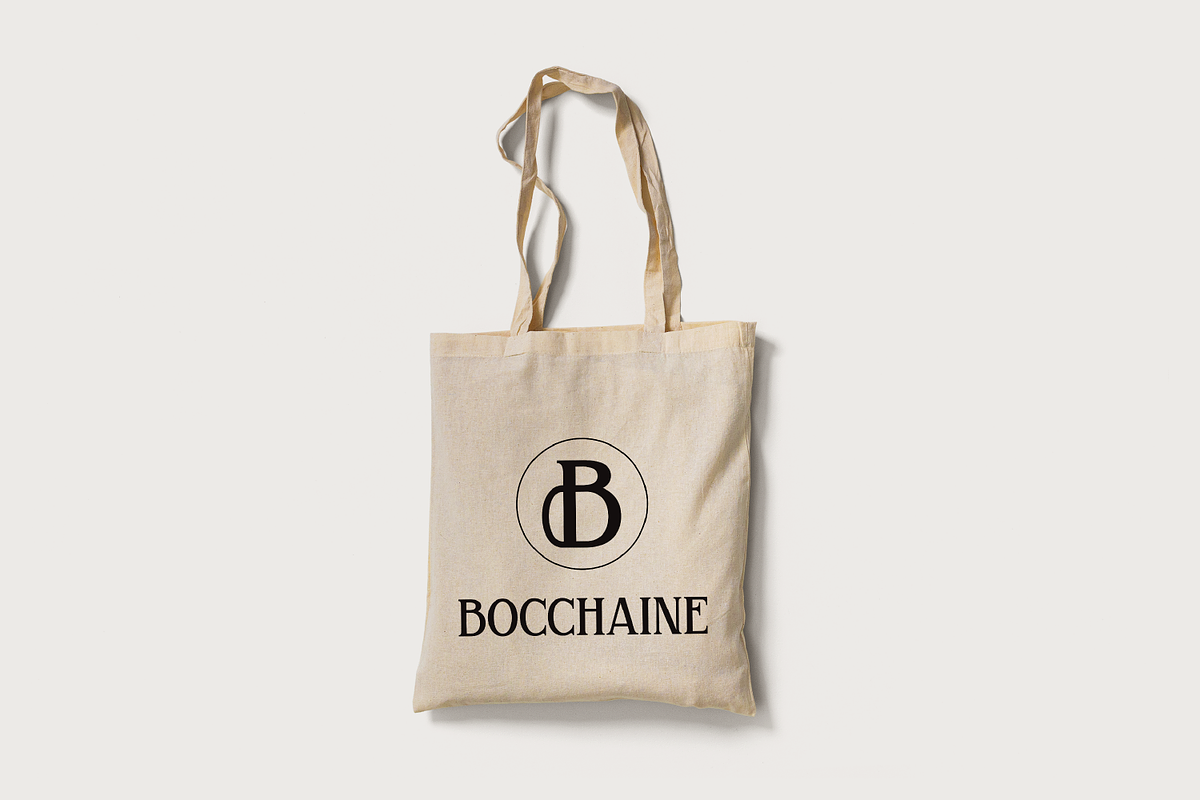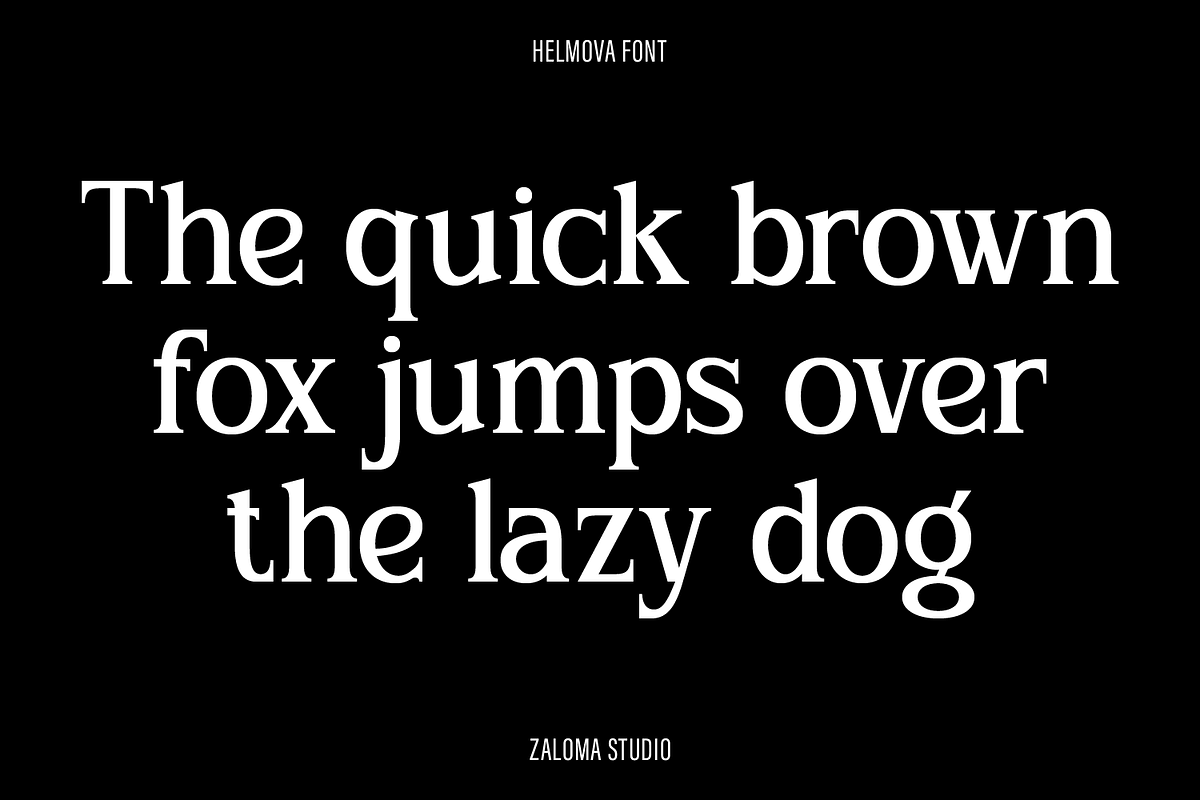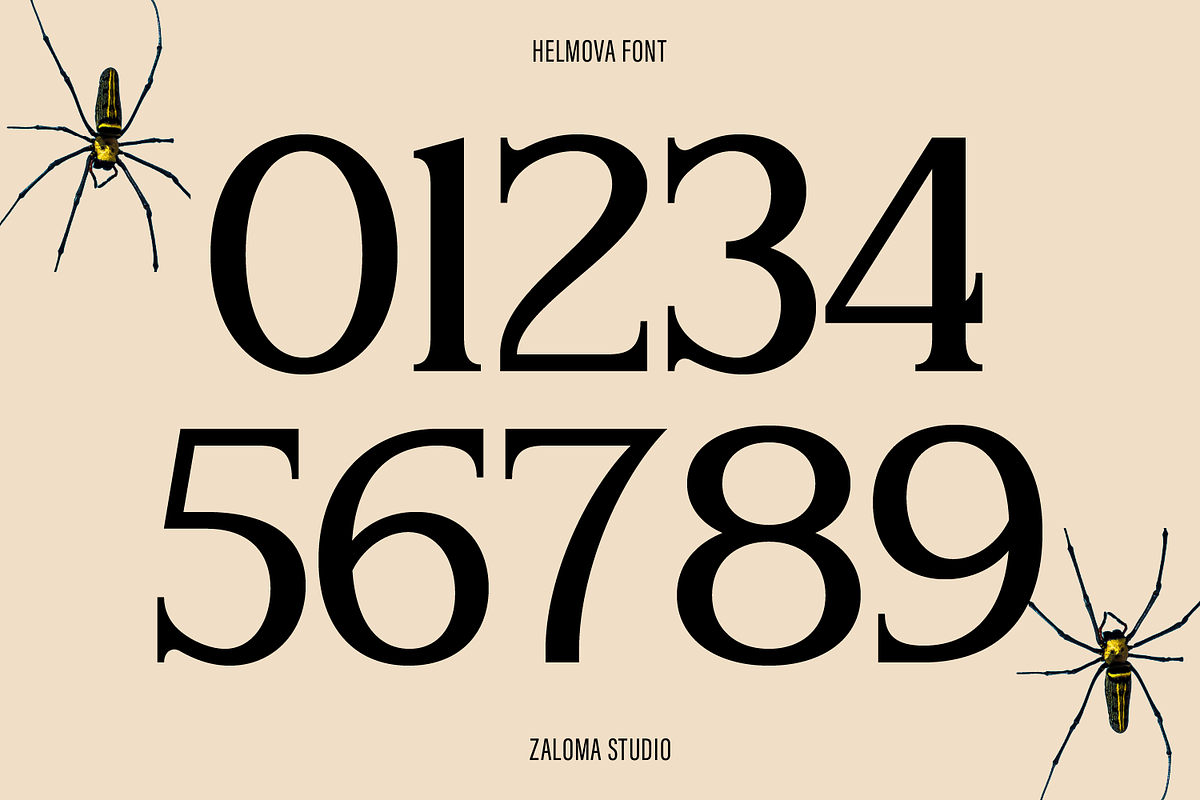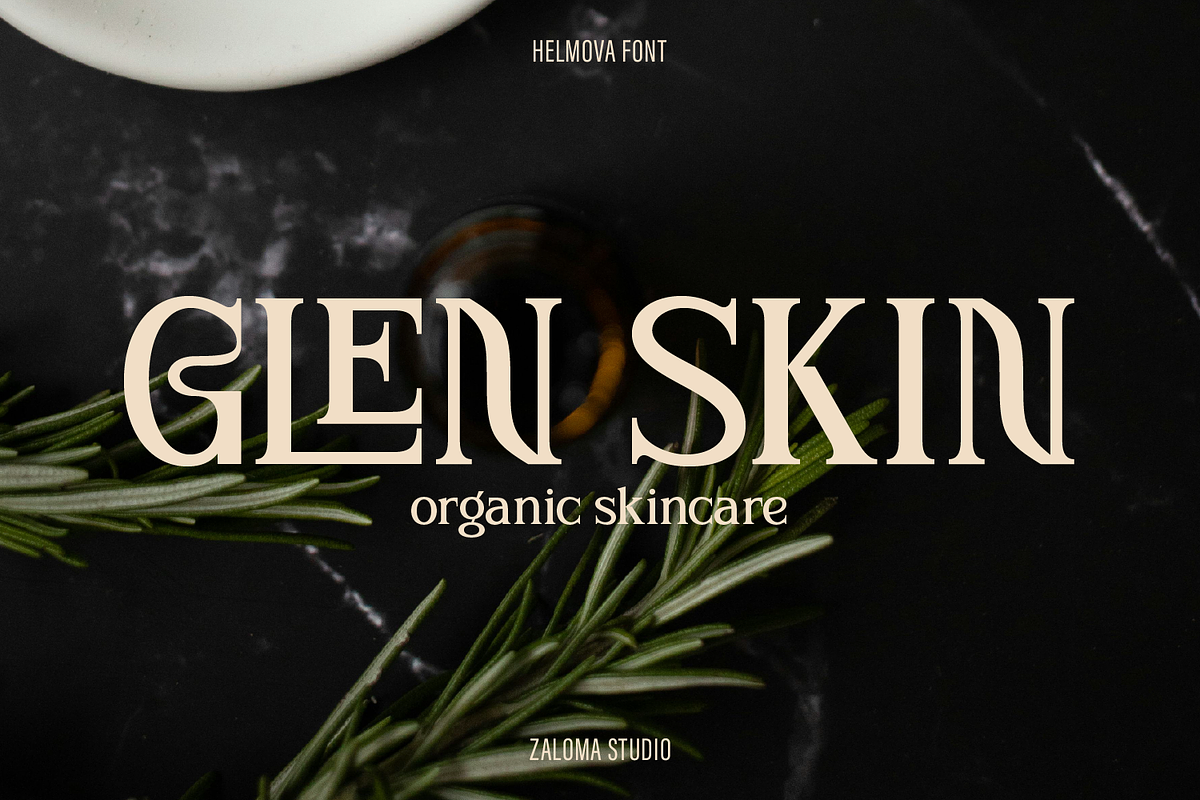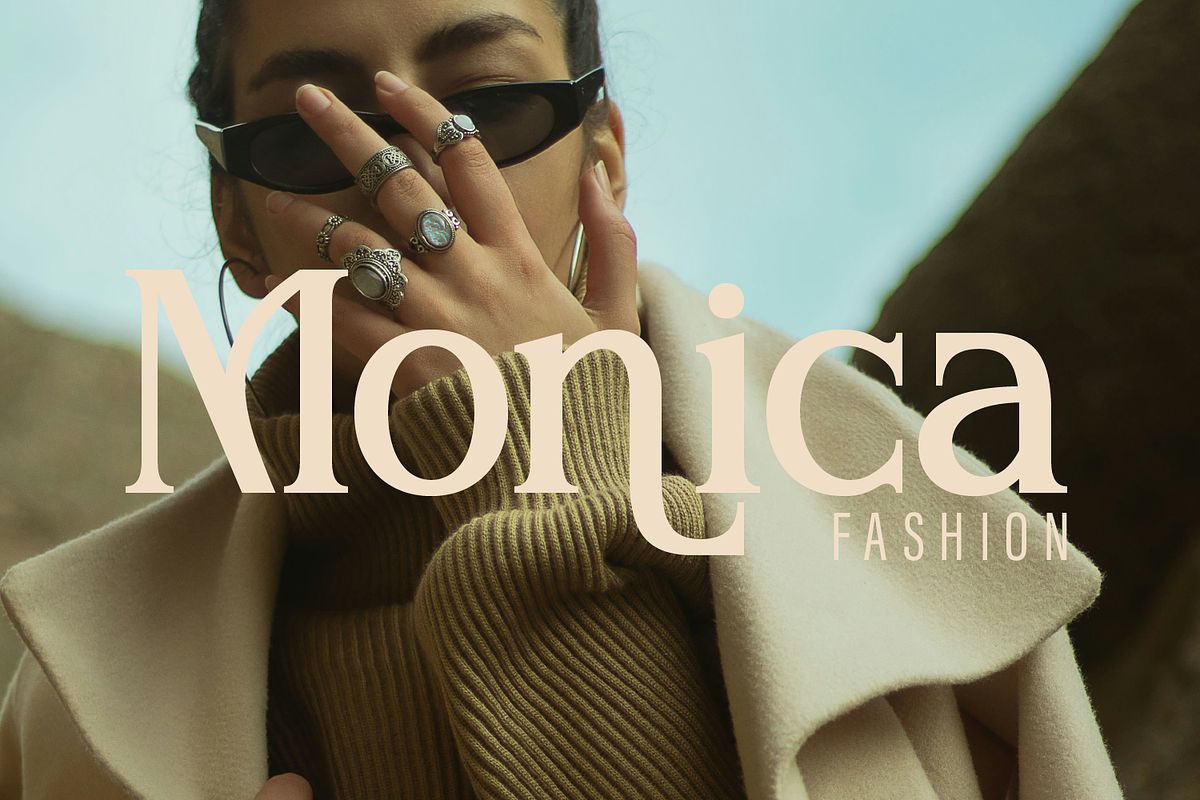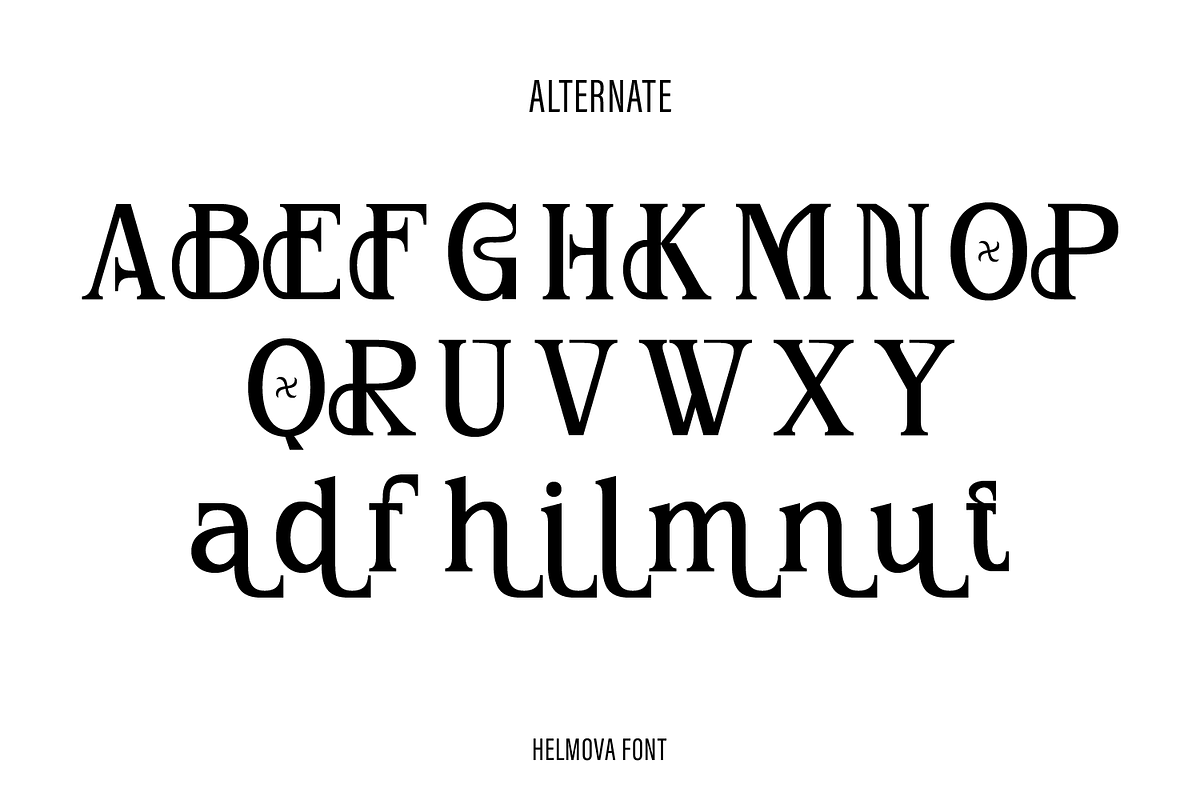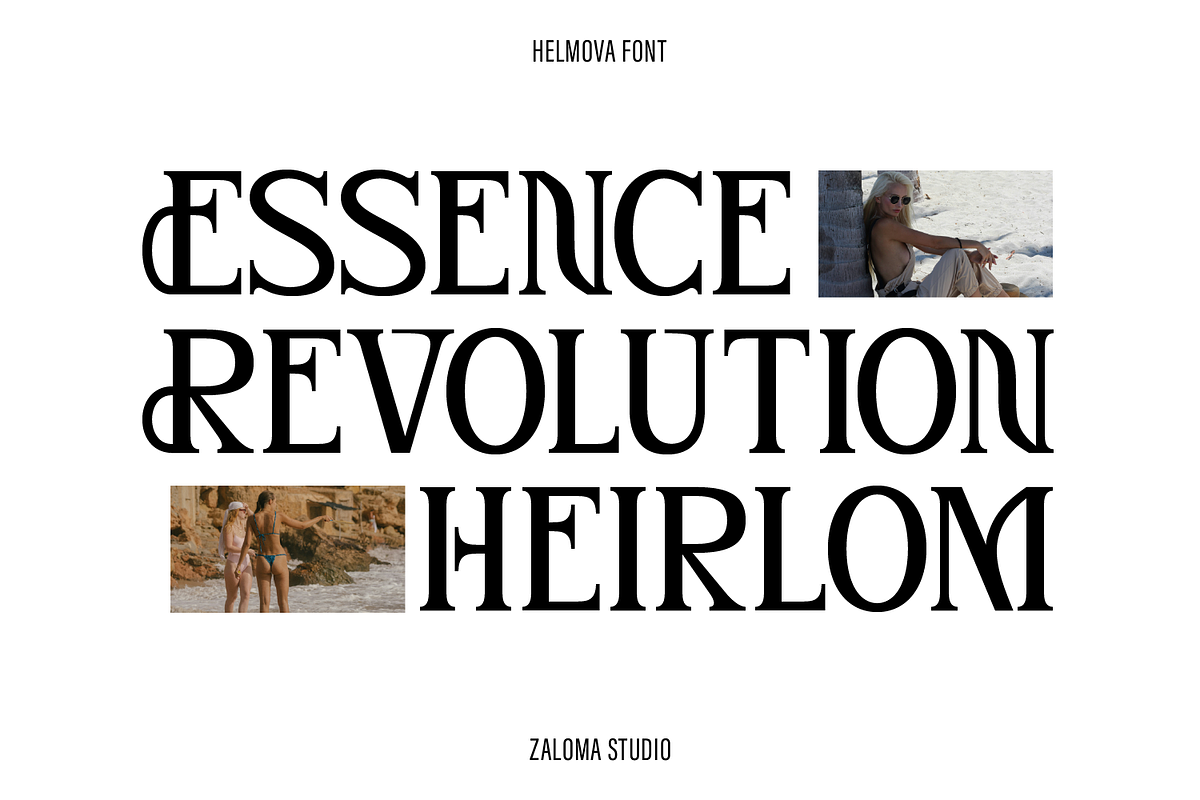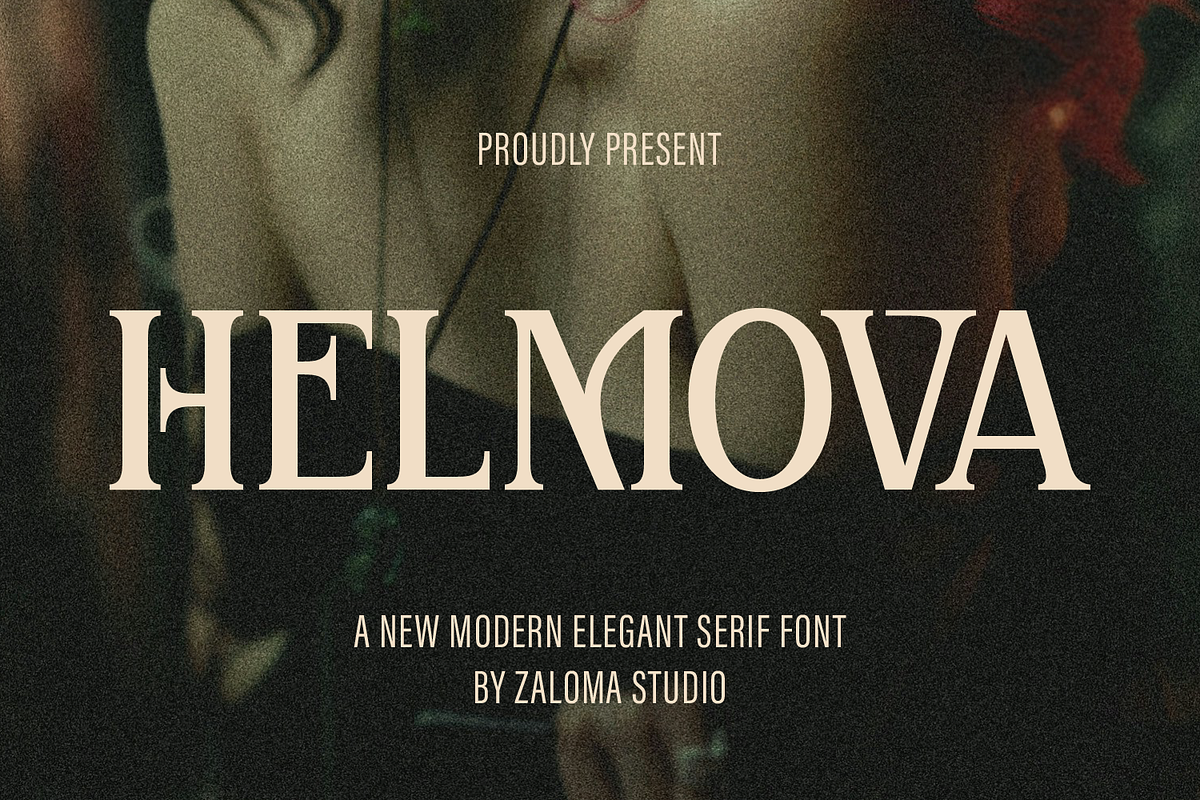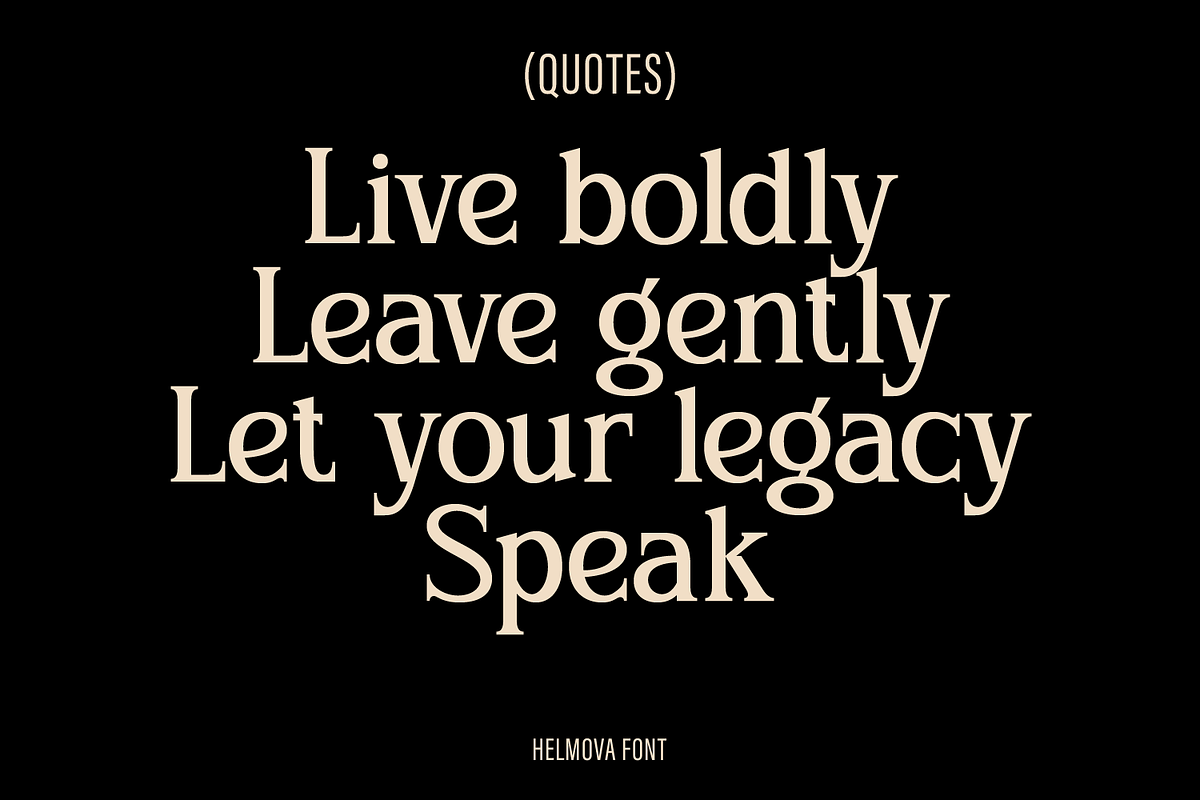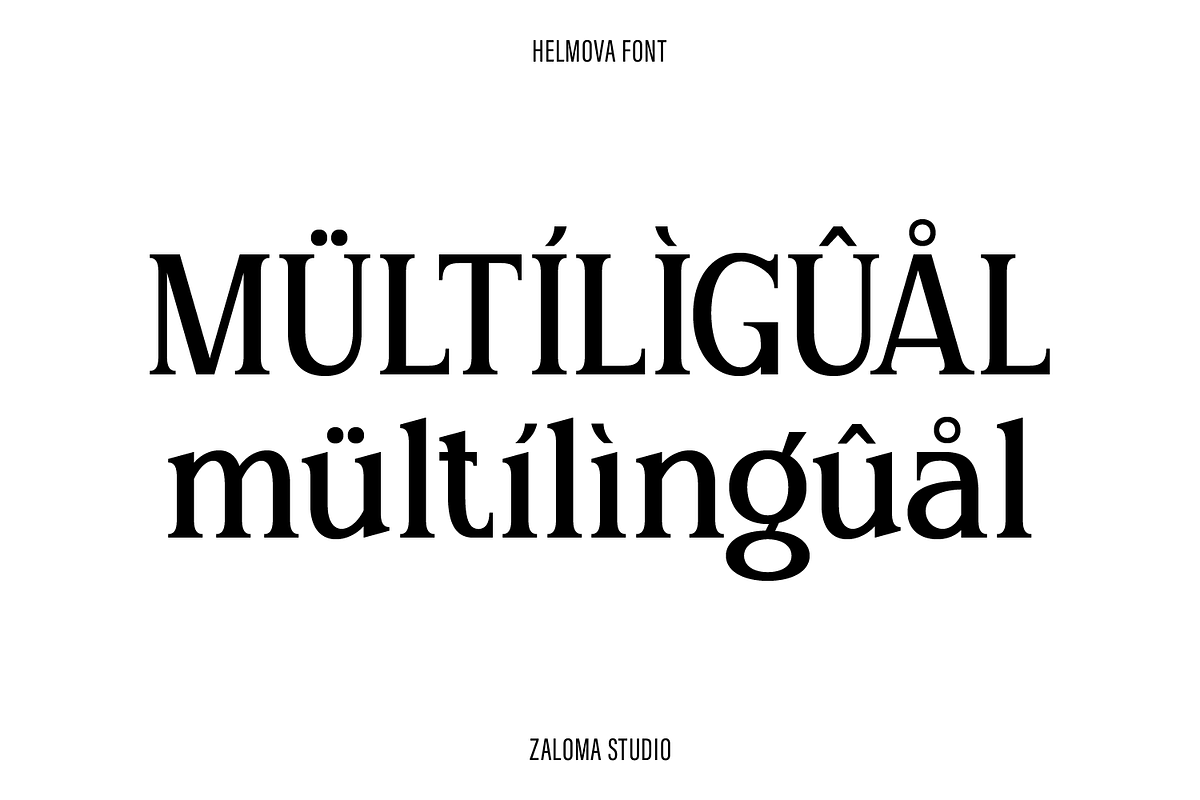
Helmova
Helmova is a modern serif font that blends timeless elegance with bold sophistication. Its refined curves and balanced proportions create a luxurious yet confident look, perfect for high-end branding, editorial layouts, logos, and packaging design. Every detail in Helmova is crafted to convey both grace and strength, making it an ideal choice for designers who seek to bring a touch of class and refinement to their creative projects.